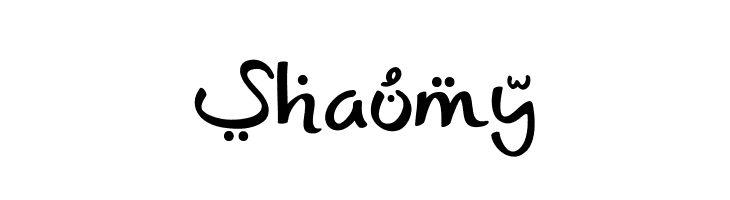
A playful, whimsical handwritten font with unique accents and embellishments.
A playful and whimsical font with unique accents and a handwritten style.